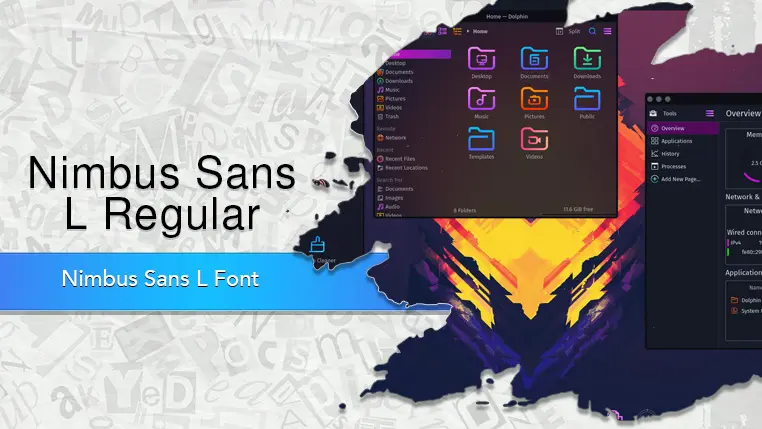
The Nimbus Sans L font family may be ideal for you if you enjoy working on an artistic design project. The lively, expressive look of this typeface, which was created by URW++, makes it ideal for Body Text, User Interfaces and Web Design. The font's professional and clean appearance lends itself well to corporate identity, branding, and official documents. As a default typeface in many GNU/Linux distributions, its legibility and modern aesthetic make it perfect for user interfaces, apps, and web design. and other light-hearted visual projects.
Regular Italic, Bold, Bold Italic, Regular are the four primary font styles of the Nimbus Sans L font family. You may build dynamic, visually appealing text layouts with the distinct flair that each style offers. With crisp, readable lines and a relaxed tone.